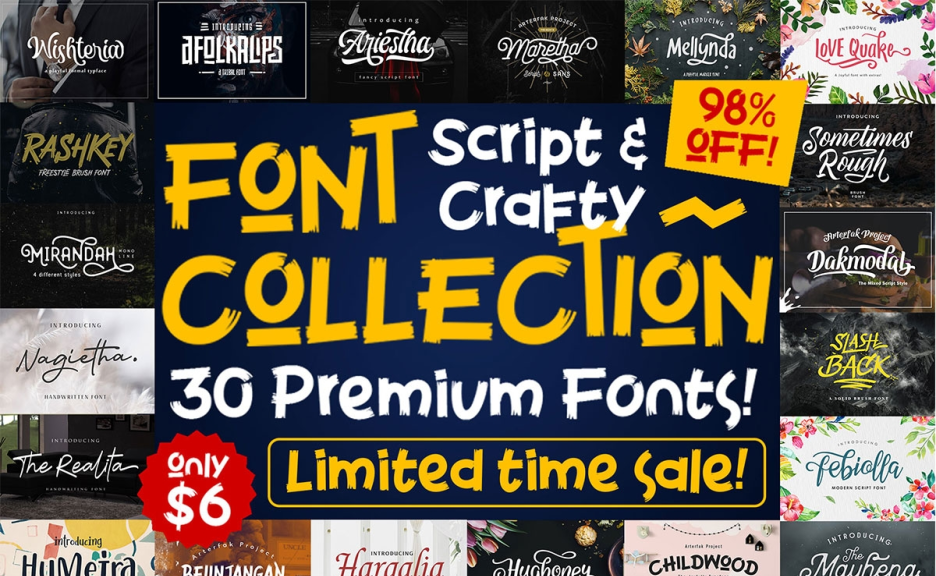
Script & Crafty Font Collection
The Script & Crafty Font Collection offers a delightful range of handwritten and decorative fonts, perfect for adding a personal touch to your projects. With a variety of styles, this collection is designed to meet the needs of both digital and print applications.
• Multiple font styles including cursive, serif, and display fonts
• Various weights for versatility in design
• Easy to read and aesthetically pleasing
• Includes uppercase and lowercase letters, numbers, and special characters
Ideal for branding, logos, invitations, and any creative project that requires a unique and stylish touch.